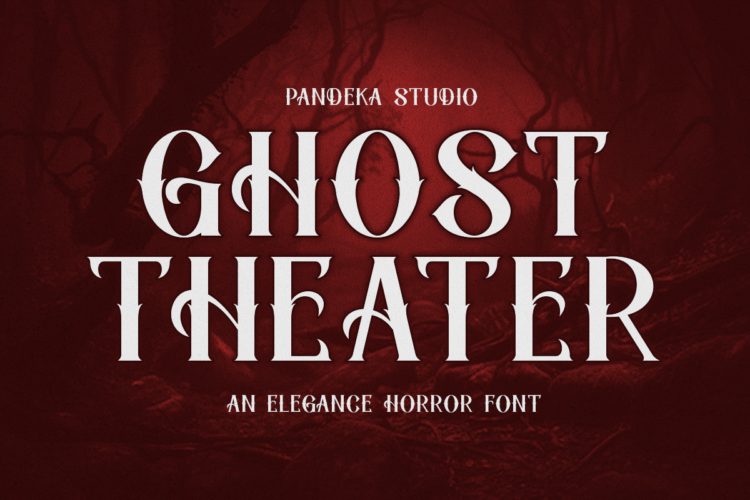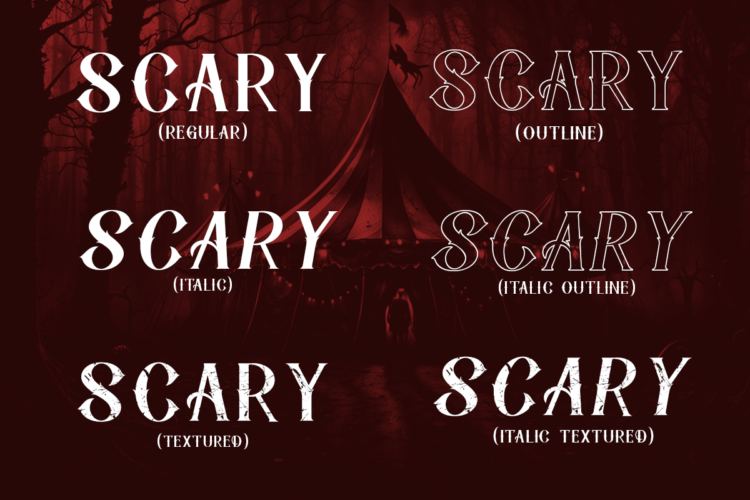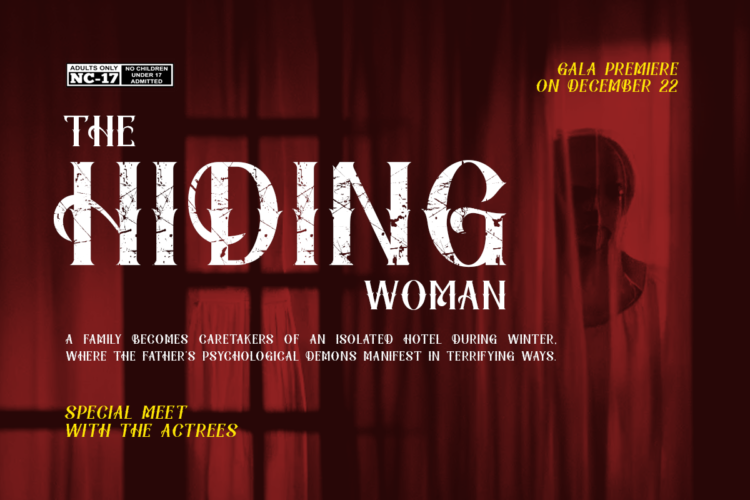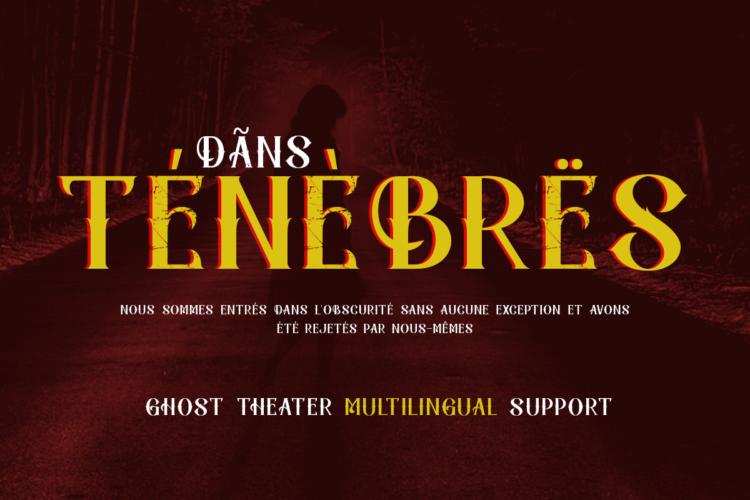
Ghost Theater Regular
Ghost Theater Italic
Ghost Theater Textured
Ghost Theater Italic Textured
Ghost Theater Outline
Ghost Theater Italic Outline
Introducing Ghost Theater – A Gothic and Sharp Horror Font
Step into the dark and mysterious world of Ghost Theater, the perfect font for all your gothic and horror-themed designs. Inspired by the eerie atmosphere of haunted mansions and the spine-chilling ambiance of Halloween nights, Ghost Theater brings a sharp, sinister edge to every letter.
With six distinct styles : Regular, Textured, Outline, Italic, Textured Italic, and Outline Italic, Ghost Theater offers versatility for any spine-tingling project. Whether you’re creating haunting headlines, eerie logos, or creepy social media posts, these styles ensure that your designs will have a striking, unforgettable impact.
• 6 Style : Regular, Textured, Outline, Italic, Textured Italic, and Outline Italic
• Unique letterforms
Ghost Theater – 6 Style Horror